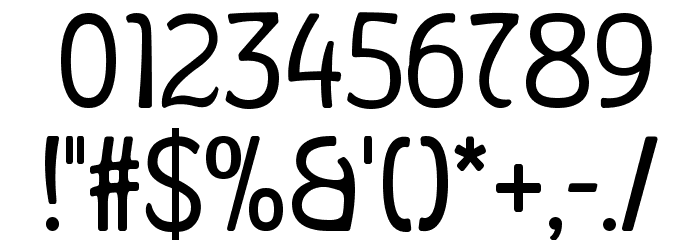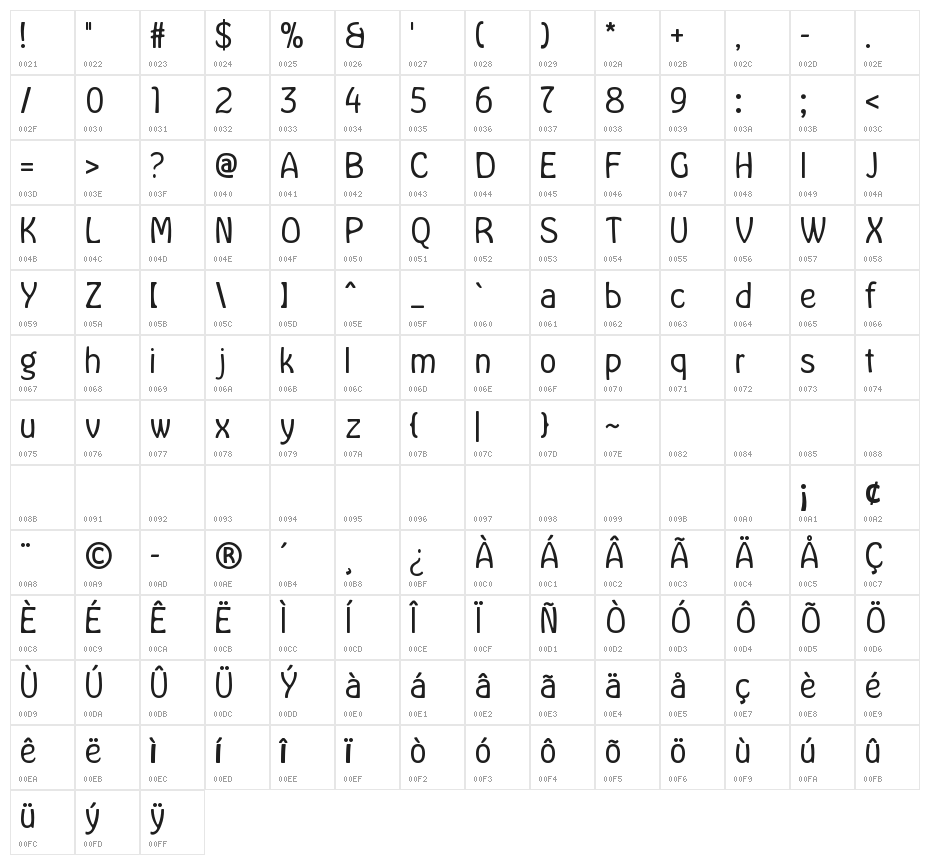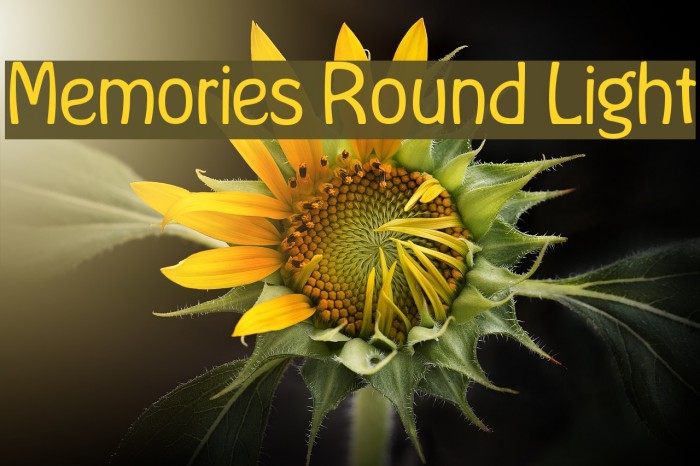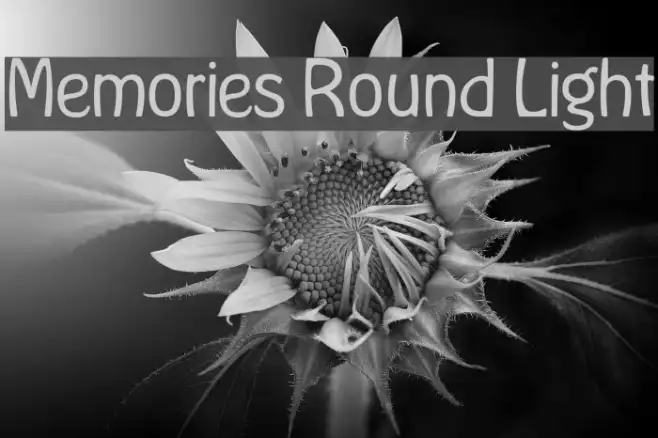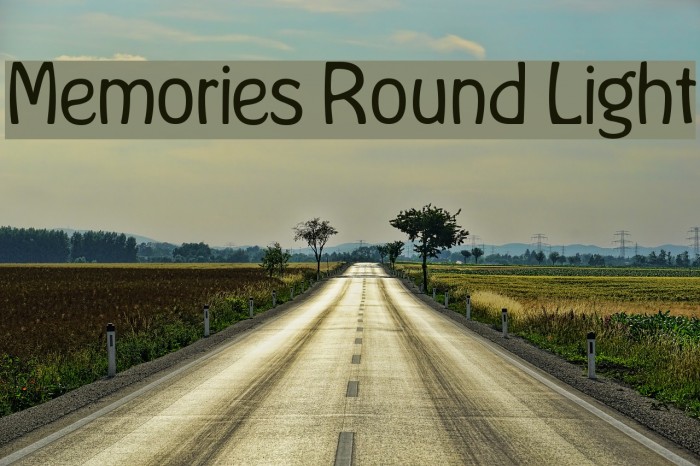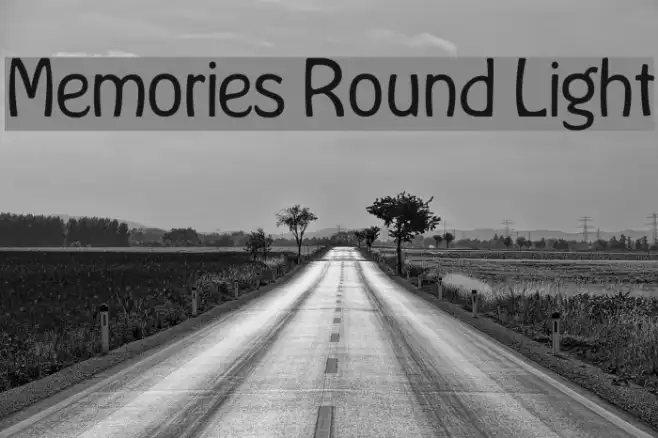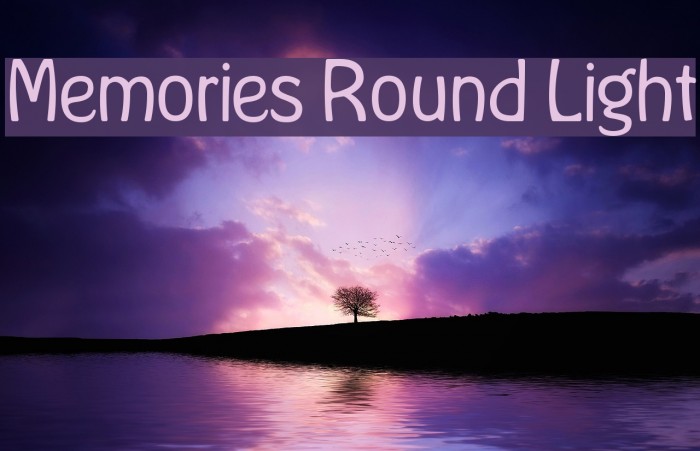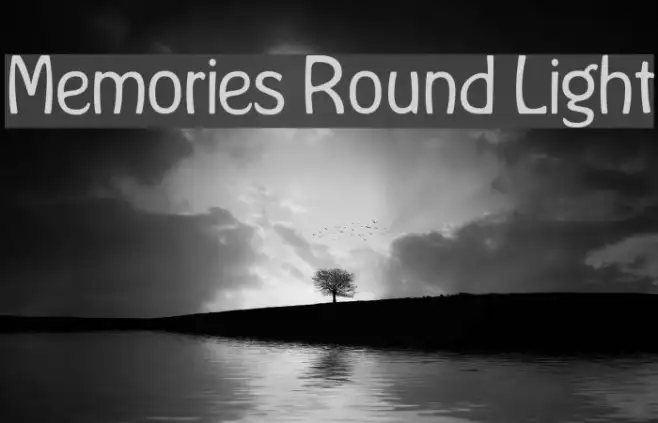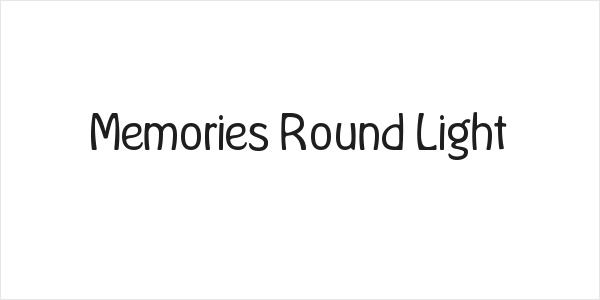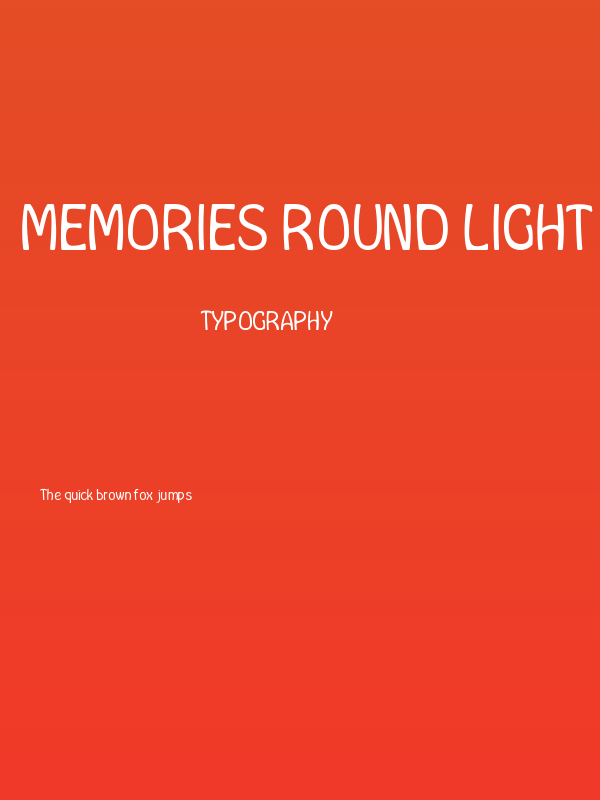
Memories Round Light Font
Memories Round Light Description
This font features a playful and rounded style, characterized by its smooth curves and friendly appearance. The letters are evenly spaced with a consistent stroke width, giving it a harmonious and approachable look. The rounded edges of each character contribute to a soft and inviting aesthetic, making it ideal for projects that aim to convey warmth and friendliness. The font maintains clarity and readability, even at smaller sizes, due to its well-defined shapes and balanced proportions. It includes a full set of uppercase and lowercase letters, numbers, and a variety of special characters, ensuring versatility for different design needs.
| Use Case | Headlines, Logos, Casual Text |
| Proposed Projects | Ideal for children's books, playful branding, greeting cards, and casual invitations. |